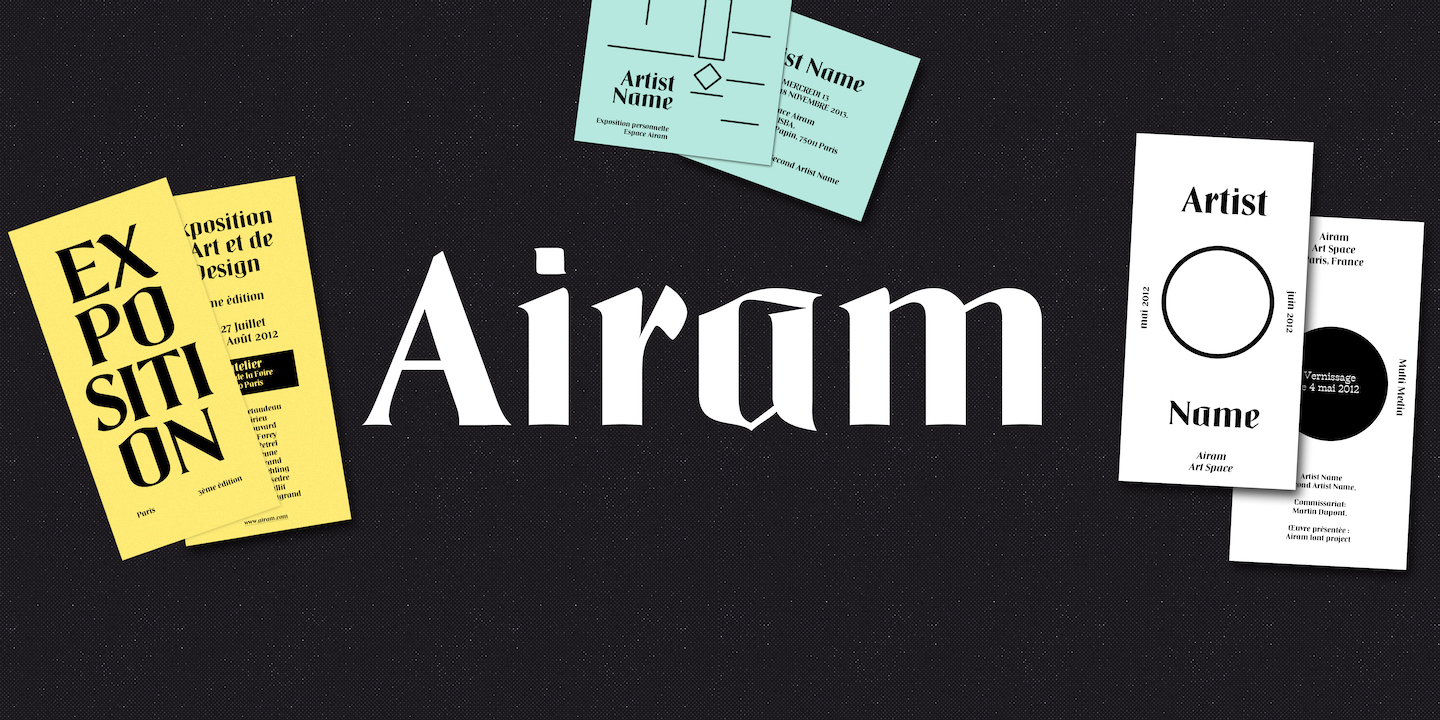
Airam Font is perfect for personal branding, elegant stationery design, boutique fashion logos, sophisticated wedding invitations, luxury lifestyle branding, artisanal product labels, exclusive event materials, and refined social media graphics. This graceful typeface excels in projects requiring intimate elegance and personalized sophistication where individual character meets timeless design appeal.
What makes Airam Font exciting is its perfect capture of personal elegance through carefully crafted letterforms that feel both intimate and sophisticated, creating a distinctive personality that stands out in today's crowded design landscape. The font features refined characters with subtle flourishes and balanced proportions that convey warmth, exclusivity, and personal attention to detail. Its intimate character makes it ideal for brands seeking to create meaningful connections with discerning customers who value personalized experiences.
Airam Font family includes multiple weights and stylistic variations that provide comprehensive design flexibility for personalized branding projects. The family typically offers light, regular, medium, semibold, and bold weights, along with elegant italic versions and decorative alternates that enhance its sophisticated appeal and personal touch.
Whether you're developing personal brand identity, creating exclusive boutique materials, or designing intimate event stationery, Airam Font Free Download delivers exceptional personal elegance across all sophisticated applications. This font's refined charm and intimate appeal make it perfect for luxury brands and personal services targeting clients who appreciate authentic craftsmanship and personalized attention.
The meticulously balanced letterforms and elegant proportions of Airam Font ensure outstanding readability while maintaining its distinctive personal character at any size. Its sophisticated design and intimate charm create memorable brand experiences that resonate with audiences seeking genuine quality and personal connection. Download Airam Font today and add personal elegance to your creative projects with this beautifully crafted typeface that perfectly embodies sophisticated intimacy and timeless personal style.